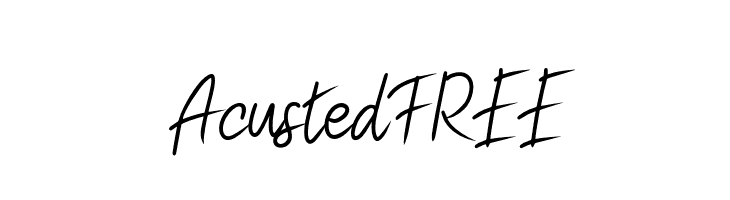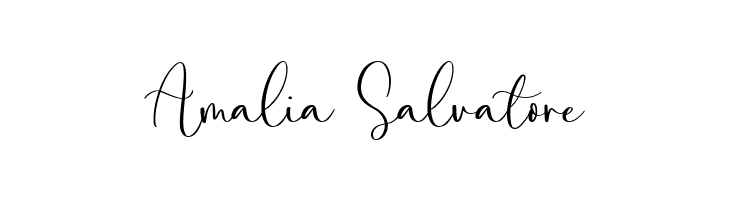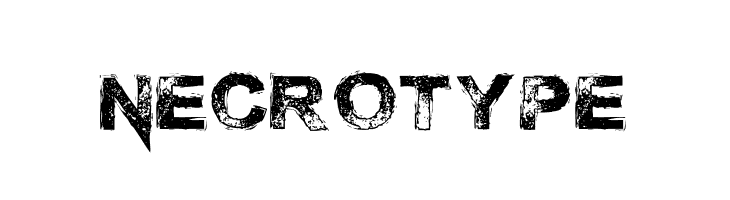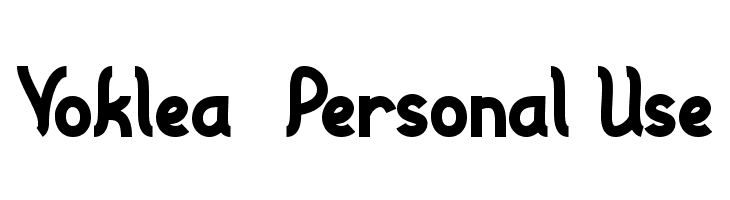
A bold, playful font with a hand-drawn, dynamic style.
A geometric, modern font with clean lines and a structured appearance.
A dynamic and fluid script font with elegant, flowing letterforms.
A bold, distressed font with a grunge, vintage style.
An elegant, cursive font with flowing, handwritten style and ornate flourishes.
A whimsical, cat-themed decorative font with playful elements.
A bold, gothic blackletter font with high contrast and intricate details.
A lively, handwritten font with dynamic strokes and a playful aesthetic.
A bold, brush script font with dynamic, hand-drawn strokes.
A bold, angular font with a geometric and dynamic style.